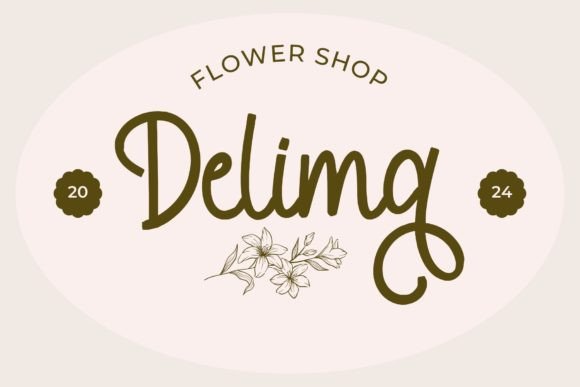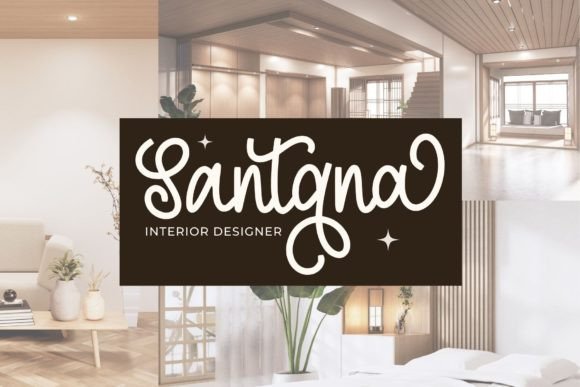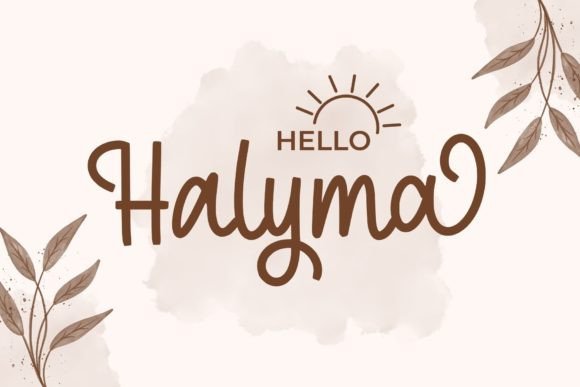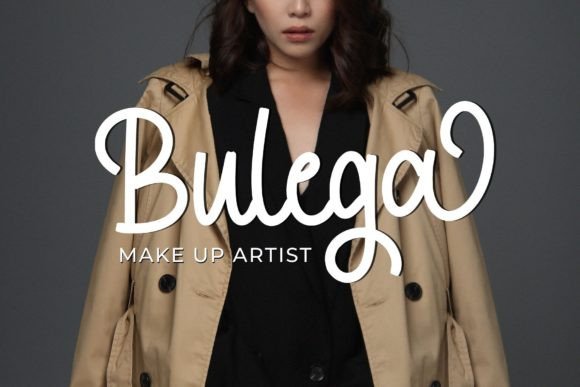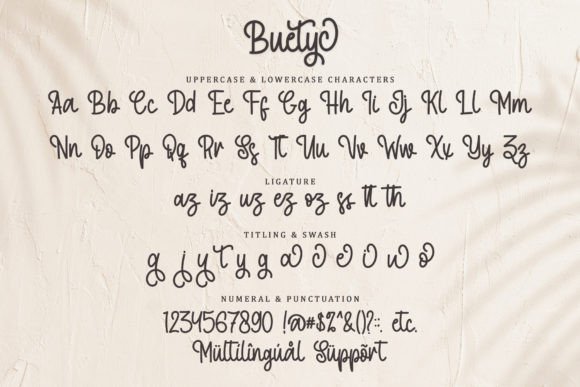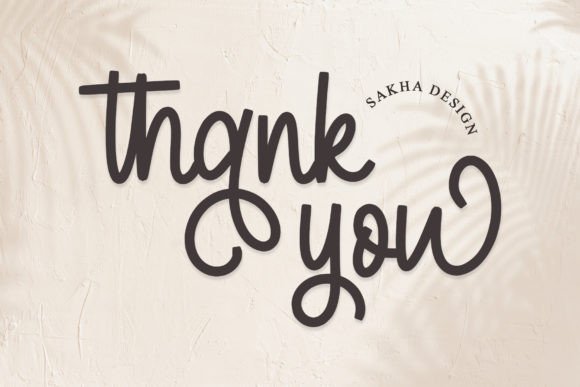
The Elusive Font: A Designer’s Quest for Elegance
I still remember the countless hours I spent searching for the perfect font for a client’s luxury wedding invitation. The design needed to exude elegance, sophistication, and a touch of whimsy. As I scrolled through font after font, I found myself settling for mediocrity – until I stumbled upon Buetyc. This exquisite font has since become my go-to for high-end projects, and I’m excited to share its beauty with you.
An Honest Review of Buetyc Font
What I Love About Buetyc ✨
- ✅ Refined and sophisticated look: Buetyc adds a touch of luxury to any design, making it perfect for high-end branding, elegant stationery, and exquisite invitations.
- ✅ Versatile and adaptable: This font seamlessly transitions from formal to informal designs, making it a versatile addition to your font library.
- ✅ Exquisite attention to detail: The font’s intricate details and subtle nuances make it a standout in any design.
- ⚠️ Occasional kerning issues: As with any font, some users may experience kerning issues, particularly when using certain character combinations. However, these issues are relatively rare and can be easily adjusted.
- ⚠️ Limited use in body text: Due to its elegant and refined nature, Buetyc may not be the best choice for lengthy body text. It’s better suited for headings, titles, and short paragraphs.
The Designer Inspiration Behind Buetyc
Buetyc was inspired by the works of renowned typographers and designers who sought to create elegant and refined fonts for high-end designs. The font’s creator drew inspiration from classic serif fonts, infusing them with modern nuances and subtle details. The result is a font that exudes luxury, sophistication, and elegance.
| Font Name | Buetyc Font |
| Author | Sakha Design |
| What type of projects is Buetyc best suited for? | Buetyc is perfect for luxury branding, elegant stationery, exquisite invitations, and high-end designs. |
| Can I use Buetyc for body text? | While Buetyc can be used for short paragraphs, it’s better suited for headings, titles, and elegant text elements due to its refined and sophisticated nature. |
| Is Buetyc a versatile font? | Yes, Buetyc is a versatile font that seamlessly transitions from formal to informal designs. |
| Does Buetyc support OpenType features? | Yes, Buetyc supports OpenType features, including glyphs, stylistic alternates, and more. |